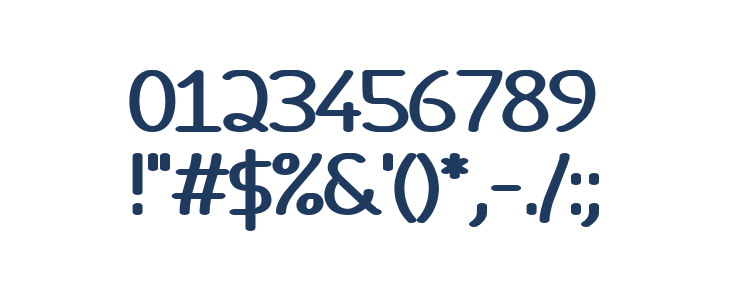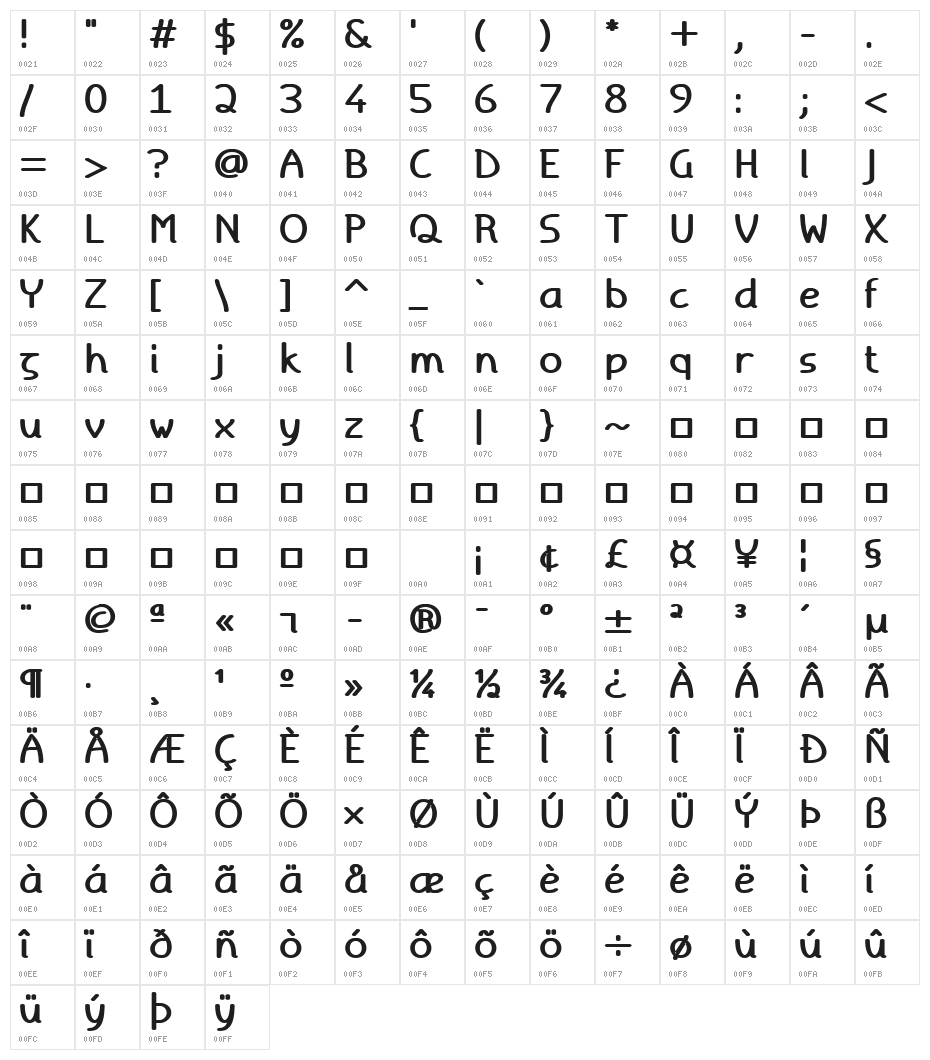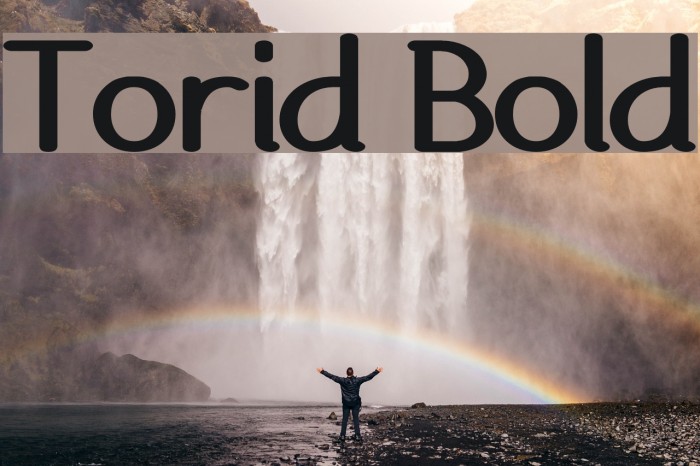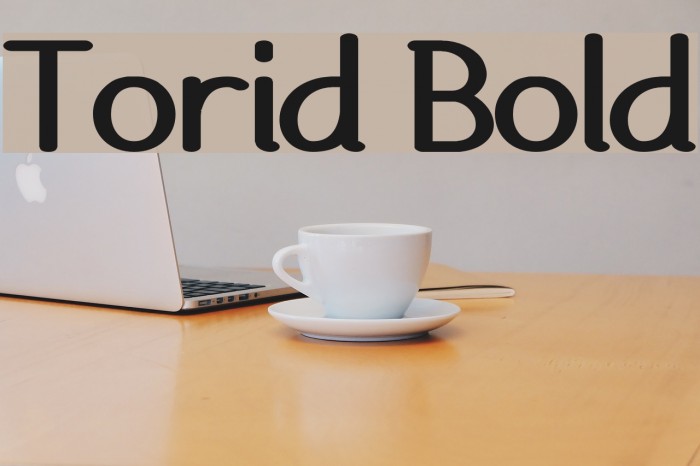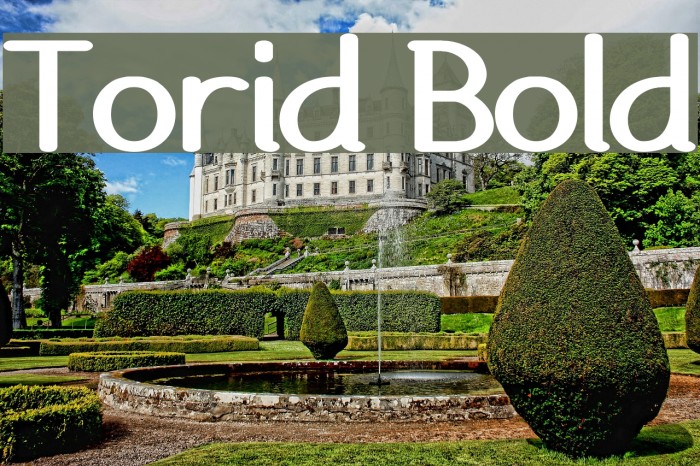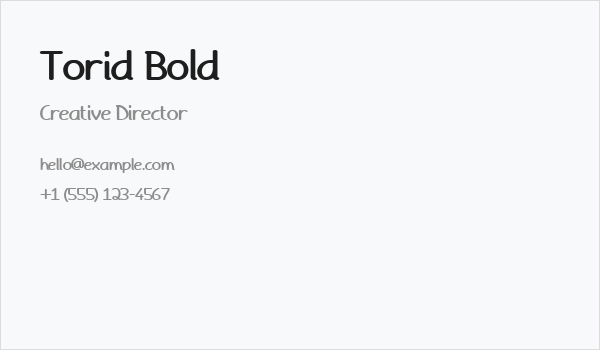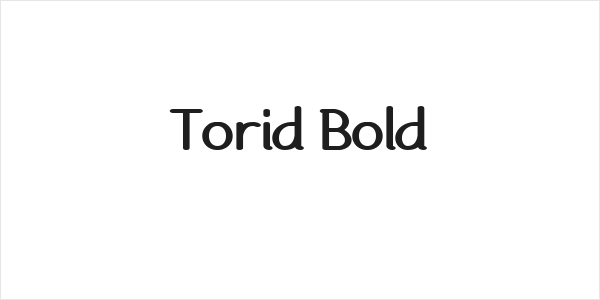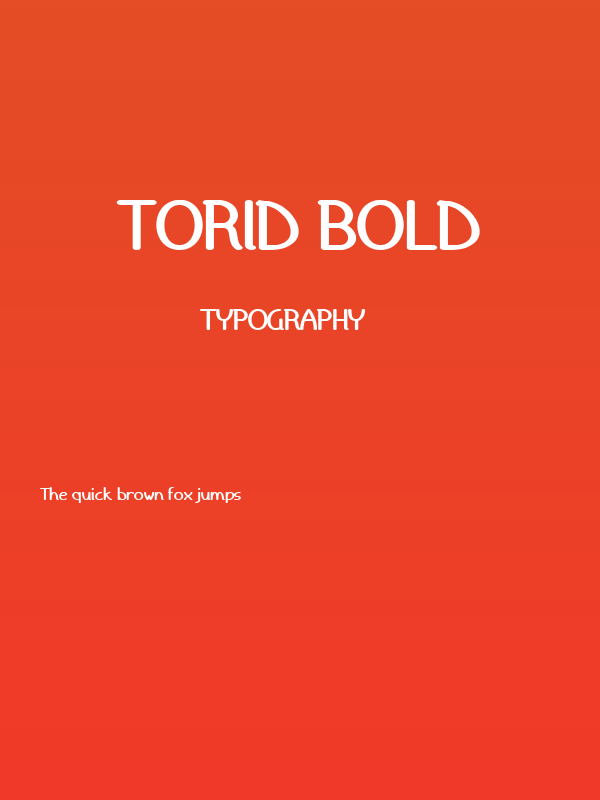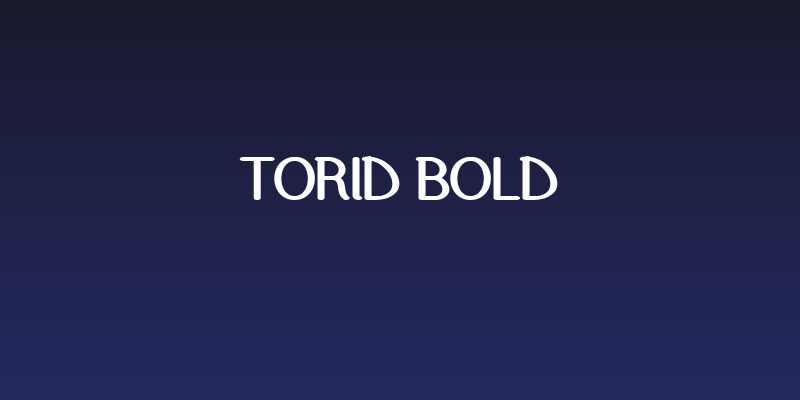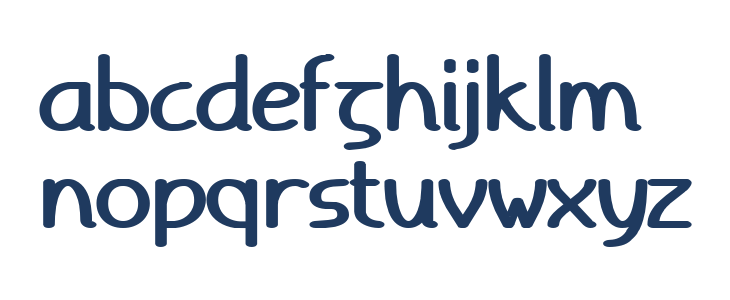
Torid Bold Font
Torid Bold Description
This font features a bold and rounded style with a playful and approachable appearance. The characters are uniformly thick, giving it a consistent and cohesive look. The rounded edges soften the overall feel, making it suitable for friendly and informal designs. The uppercase and lowercase letters maintain a balanced proportion, ensuring readability. The numerals and special characters are designed to match the playful aesthetic, with similar rounded forms and consistent weight. This font is versatile, suitable for a variety of creative projects that require a touch of warmth and friendliness.
| Proposed Projects | Ideal for children's books, playful branding, casual invitations, and friendly product packaging. |